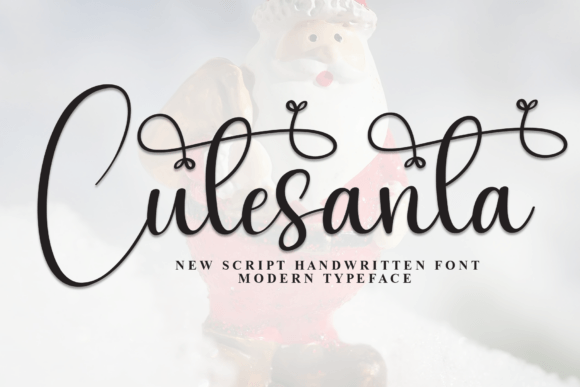
Cutesanta Font: The Perfect Addition to Your Holiday Designs
The holiday season is upon us, and with it comes the need for festive and fun designs that capture the spirit of the season. If you’re looking for a font that embodies the playful and charming vibe of the holidays, look no further than Cutesanta. This delightful script font is perfect for adding a warm and joyful touch to your holiday designs, greeting cards, and festive projects.
What is Cutesanta Font?
Cutesanta is a playful and charming script font with smooth, flowing letters. Its fun, handwritten style is reminiscent of a child’s scribbles, making it perfect for holiday designs, greeting cards, and festive projects. The font’s cute and friendly look adds a warm, joyful touch to any design, making it an excellent choice for anyone looking to add some personality to their work.
Key Features of Cutesanta Font
- Playful and charming script font: Cutesanta’s smooth, flowing letters are perfect for creating fun and festive designs.
- Handwritten style: The font’s handwritten style gives it a personal and friendly touch, making it perfect for greeting cards and other personal designs.
- Cute and friendly look: Cutesanta’s adorable design adds a warm and joyful touch to any project, making it perfect for holiday designs and festive projects.
- Smooth and flowing letters: The font’s smooth and flowing letters make it easy to read and perfect for use in a variety of designs.
Uses for Cutesanta Font
Cutesanta is a versatile font that can be used in a variety of designs, including:
- Holiday designs: Cutesanta is perfect for creating festive holiday designs, such as Christmas cards, Halloween decorations, and Easter egg designs.
- Greeting cards: The font’s handwritten style and cute design make it perfect for use in greeting cards for birthdays, holidays, and other special occasions.
- Festive projects: Cutesanta is a great choice for festive projects, such as party invitations, decorations, and other celebratory materials.
- Digital designs: The font can be used in digital designs, such as social media graphics, blog posts, and website headers.
Benefits of Using Cutesanta Font
Using Cutesanta in your designs offers a range of benefits, including:
- Instant festive feel: Cutesanta’s holiday-themed design instantly adds a festive feel to any project.
- Easy to read: The font’s smooth and flowing letters make it easy to read, even at small sizes.
- Versatile: Cutesanta can be used in a variety of designs, from digital designs to print materials.
- Unique and playful: The font’s playful and charming design sets it apart from more traditional fonts.
Tips for Using Cutesanta Font
Here are a few tips for getting the most out of Cutesanta:
- Use it sparingly: Cutesanta is a bold font, so use it sparingly to add emphasis to key words or phrases.
- Pair it with other fonts: Cutesanta pairs well with other fonts, such as sans-serif fonts or serif fonts.
- Experiment with colors: Cutesanta looks great in a range of colors, from bright and bold to pastel and soft.
- Have fun: The most important thing is to have fun with Cutesanta and experiment with different designs and ideas.
Cutesanta is a playful and charming script font that’s perfect for adding a warm and joyful touch to your holiday designs, greeting cards, and festive projects. With its smooth and flowing letters, cute and friendly look, and versatile design, Cutesanta is a great choice for anyone looking to add some personality to their work. Whether you’re a designer, a DIY enthusiast, or just someone who loves the holiday season, Cutesanta is a font that’s sure to bring a smile to your face.